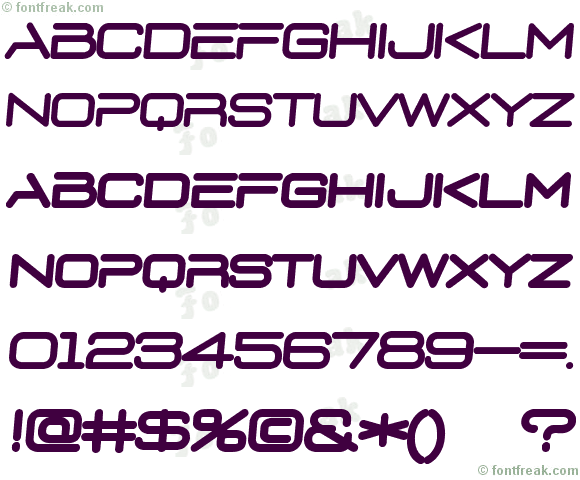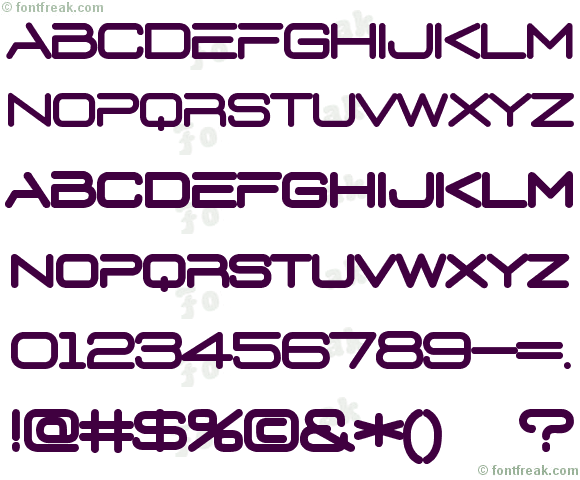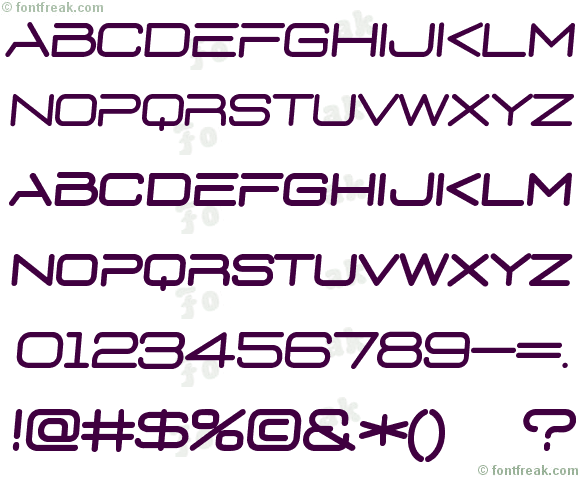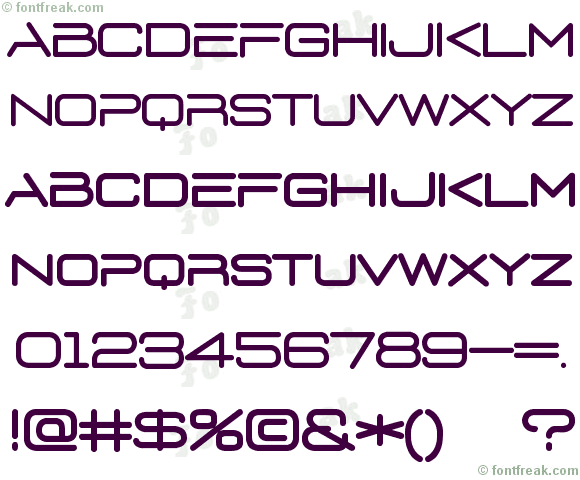
About Euronism
Euronism is a striking display font designed by Digital Dream Design, characterized by its clean lines and contemporary aesthetic. This freeware font belongs to the sans-serif category, making it an excellent choice for a variety of modern design applications. The visual characteristics of Euronism include a bold stroke weight, which adds a sense of presence and authority to any text. The contrast is subtle yet effective, allowing for clear readability while maintaining a stylish look. The spacing between characters is well-considered, giving the font a balanced appearance that enhances legibility without compromising its design appeal. Decorative elements, while minimal, contribute to its uniqueness, making it stand out in a crowded font market.
Euronism is particularly well-suited for use cases such as branding, where a strong visual identity is essential. It can be effectively utilized in event flyers, ensuring that key information captures attention. Additionally, the font is ideal for website headers, where it can convey a modern, professional tone. Its bold presence makes it suitable for product packaging, helping to create a memorable impression on consumers. Small business owners looking to establish a distinctive brand image will find Euronism to be a valuable asset in their marketing toolkit.
What truly sets Euronism apart is its ability to blend modernity with versatility, making it an excellent choice for both digital and print media. Its distinctive style and strong character make it a standout font that can elevate any design project.